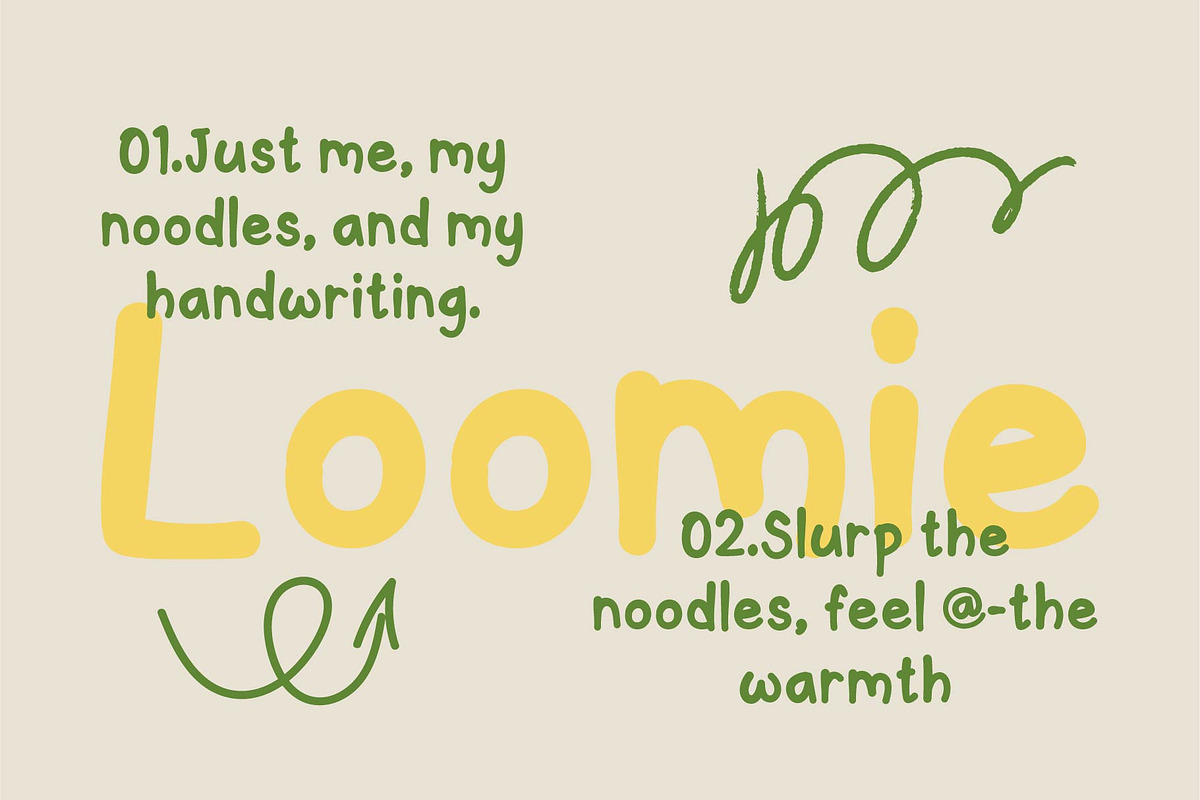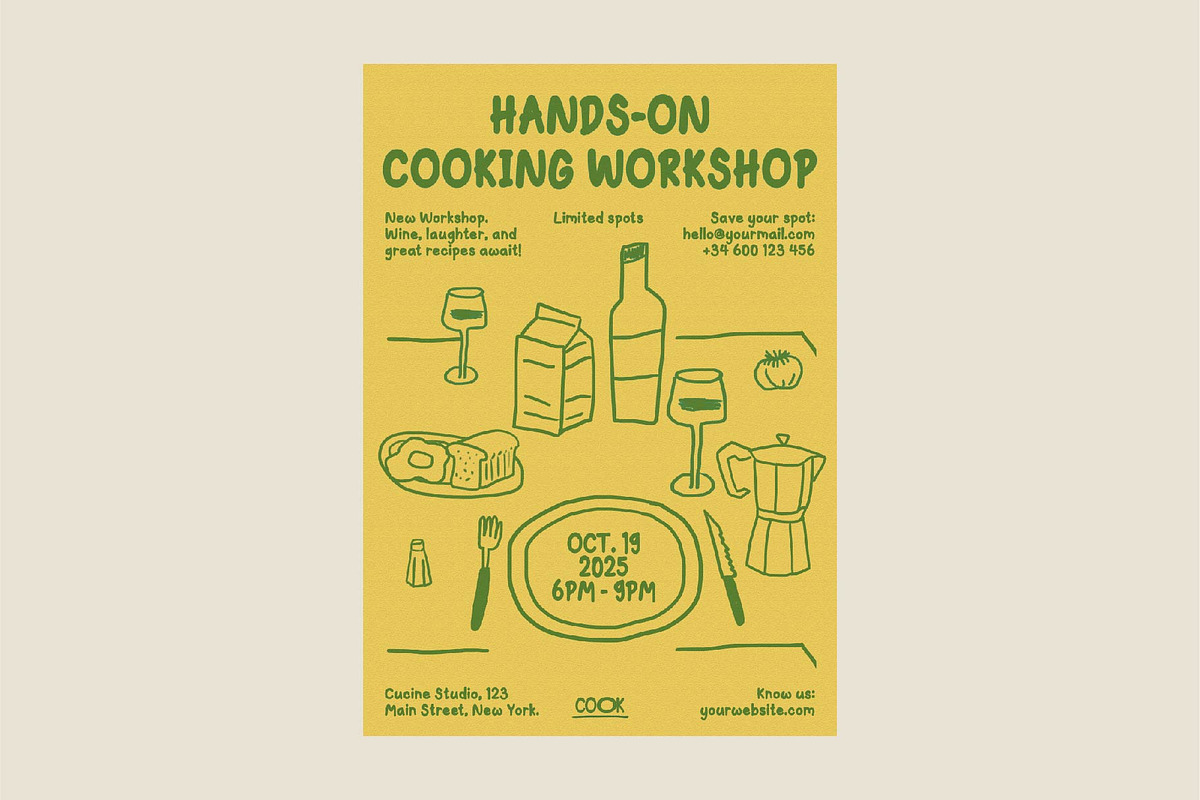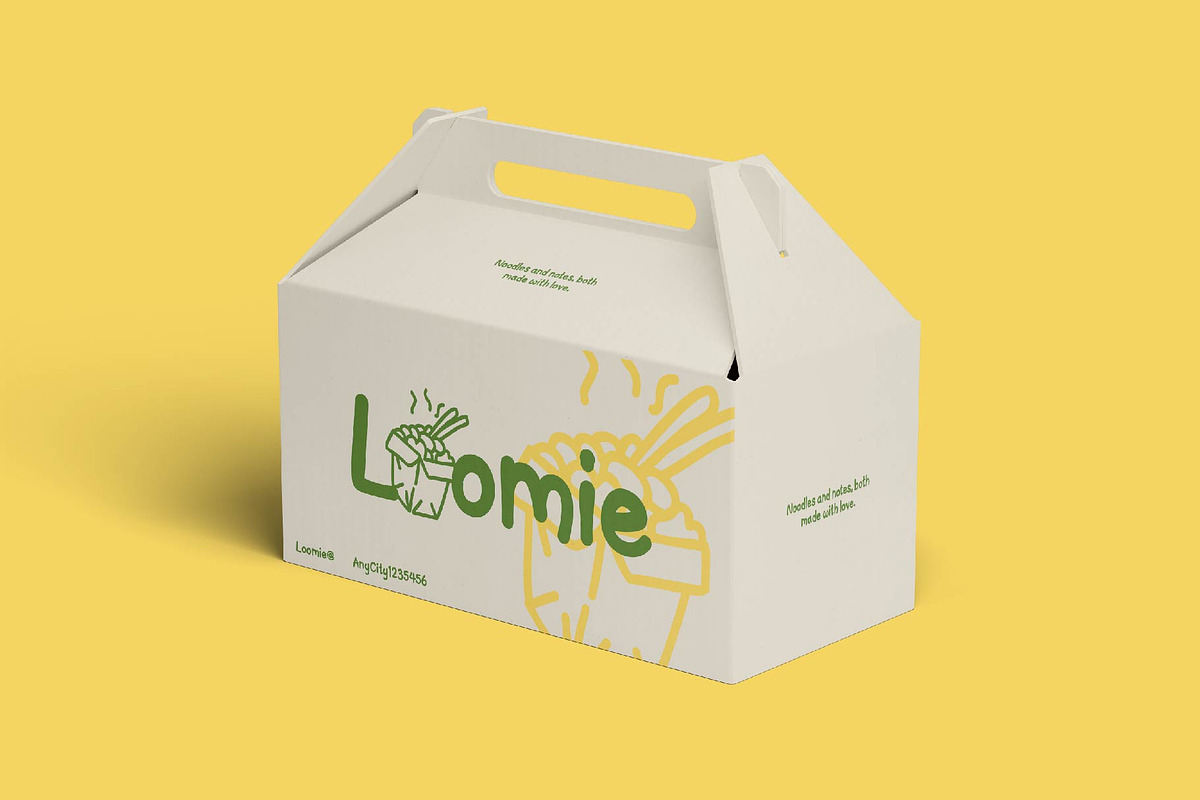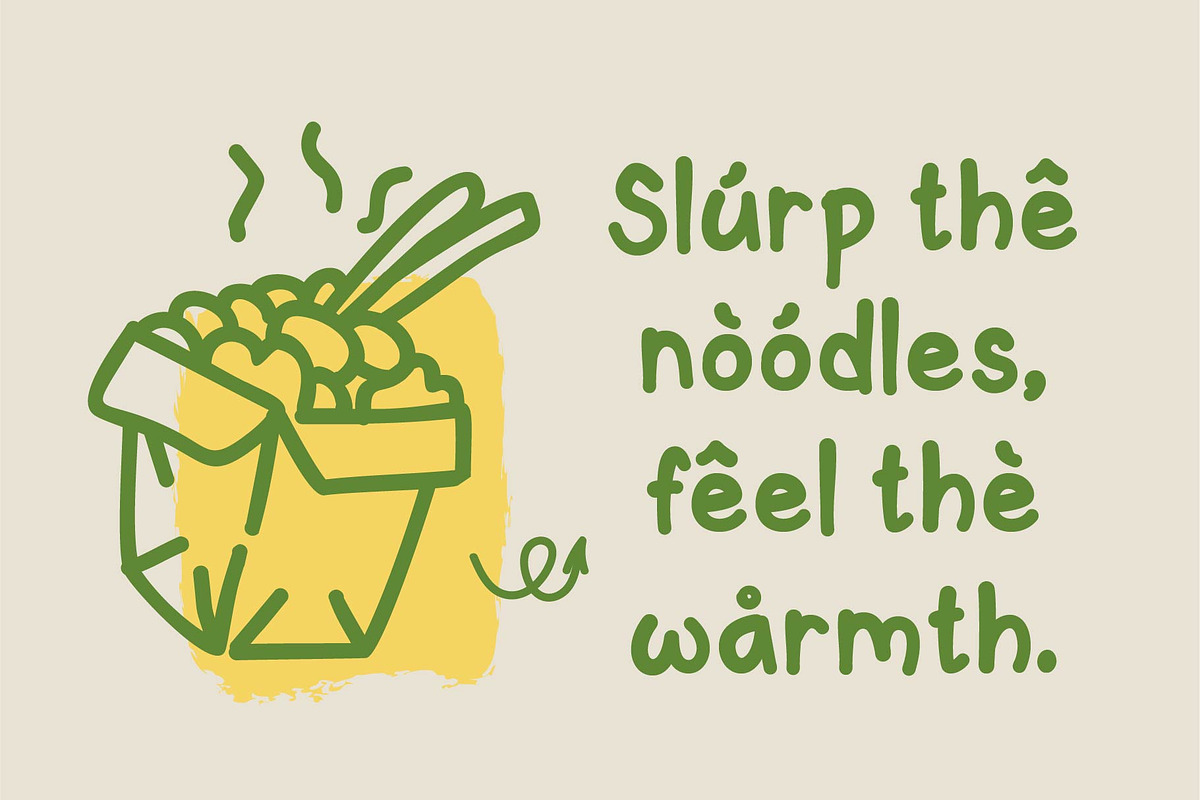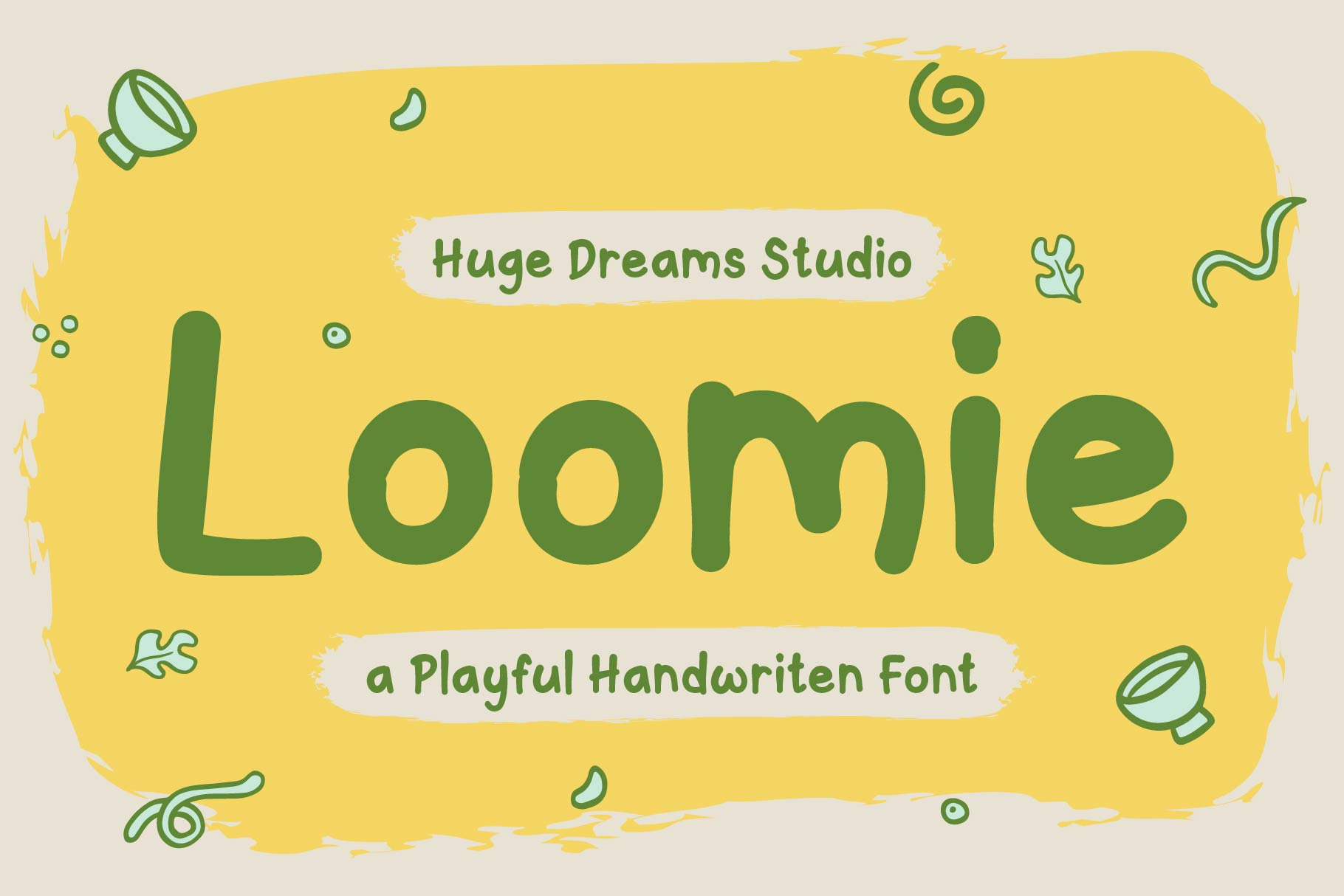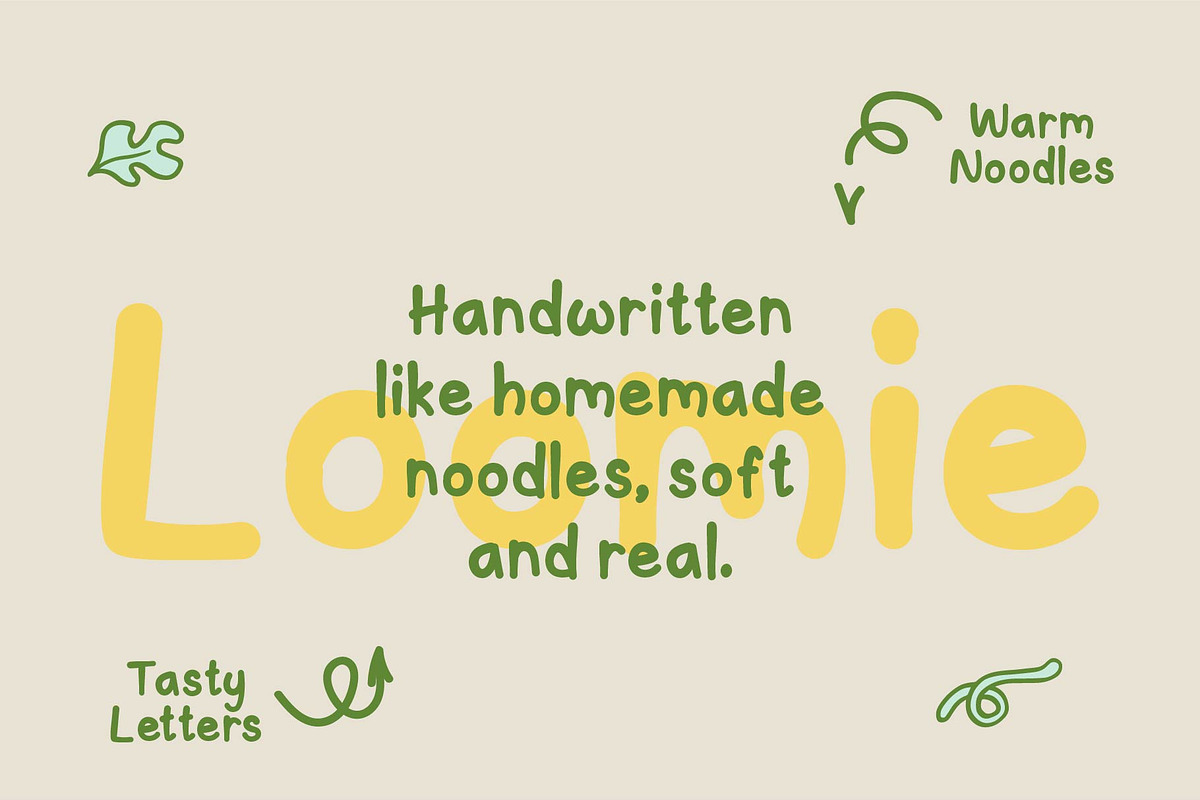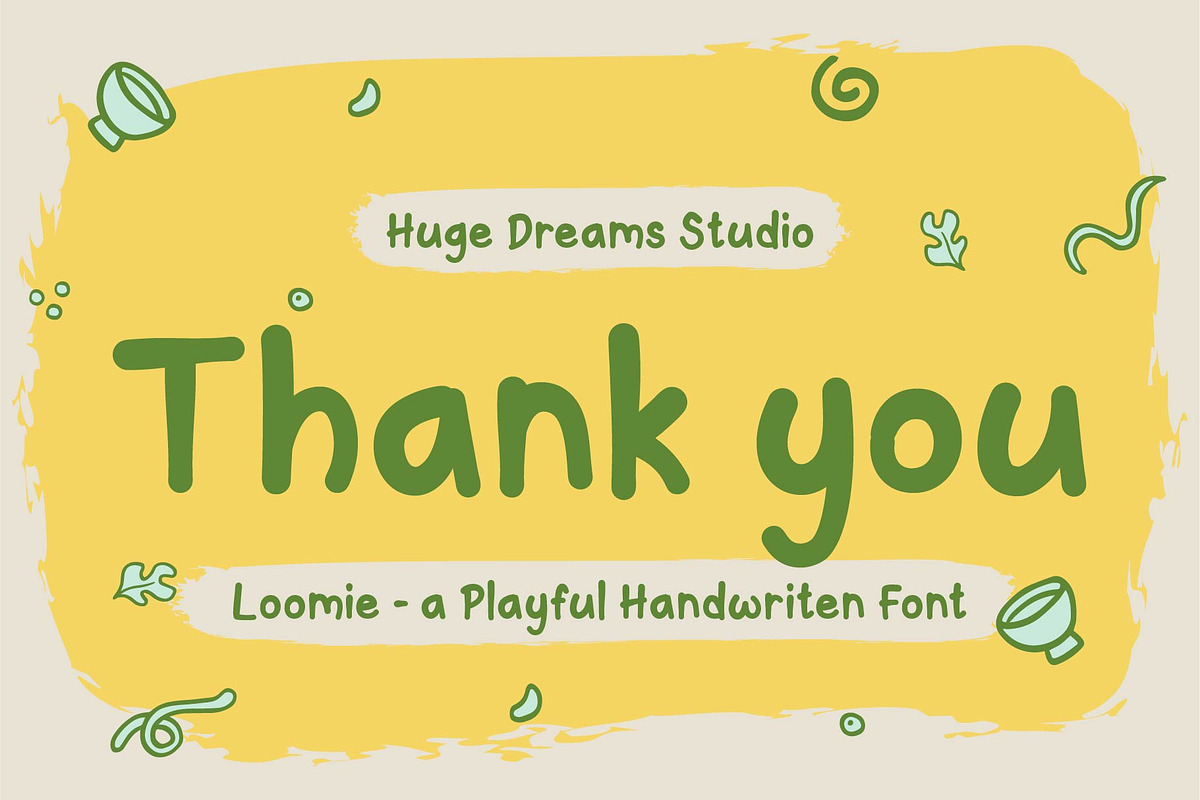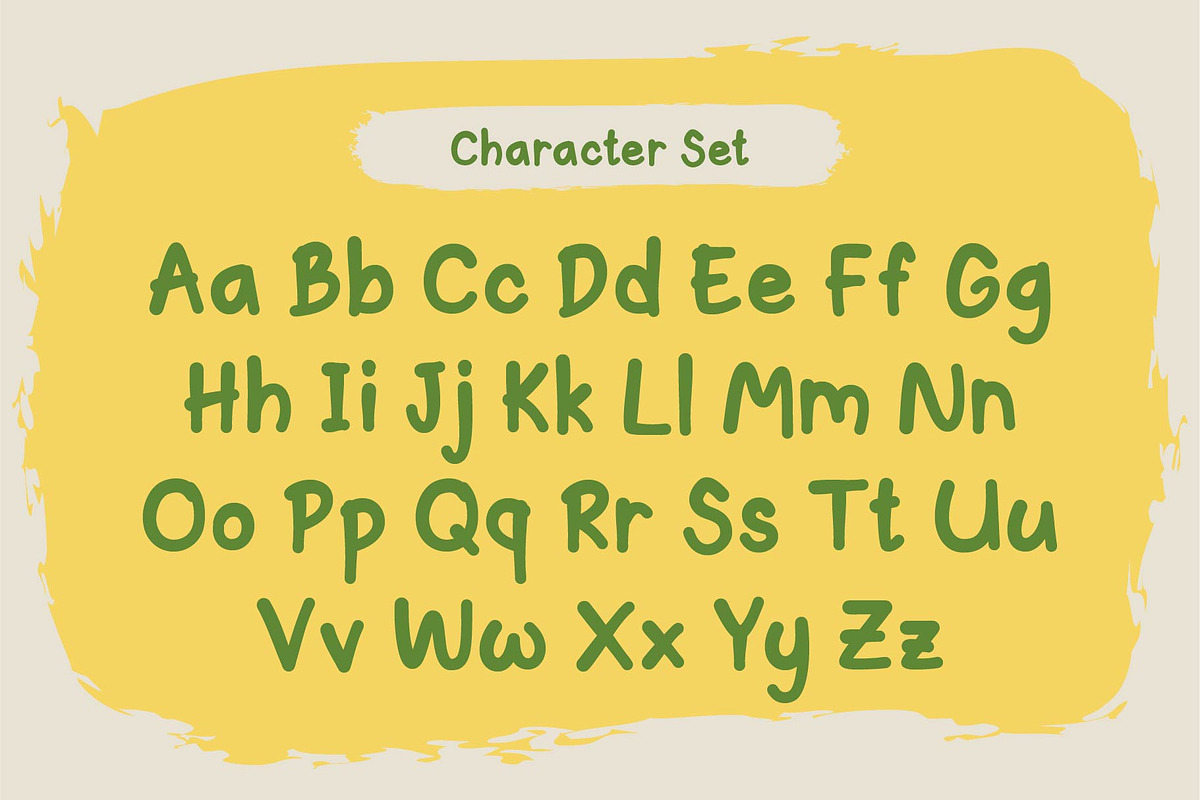
LOOMIE – Expressive Doodle Font
Loomie is a playful and energetic doodle font filled with quirky shapes and lively strokes. Its hand-drawn style brings a burst of creativity to any project, making it perfect for kids’ designs, cute branding, social media posts, stickers, and fun packaging. Every letter feels spontaneous and full of personality—just the right choice when you want your design to look cheerful, charming, and irresistibly creative.